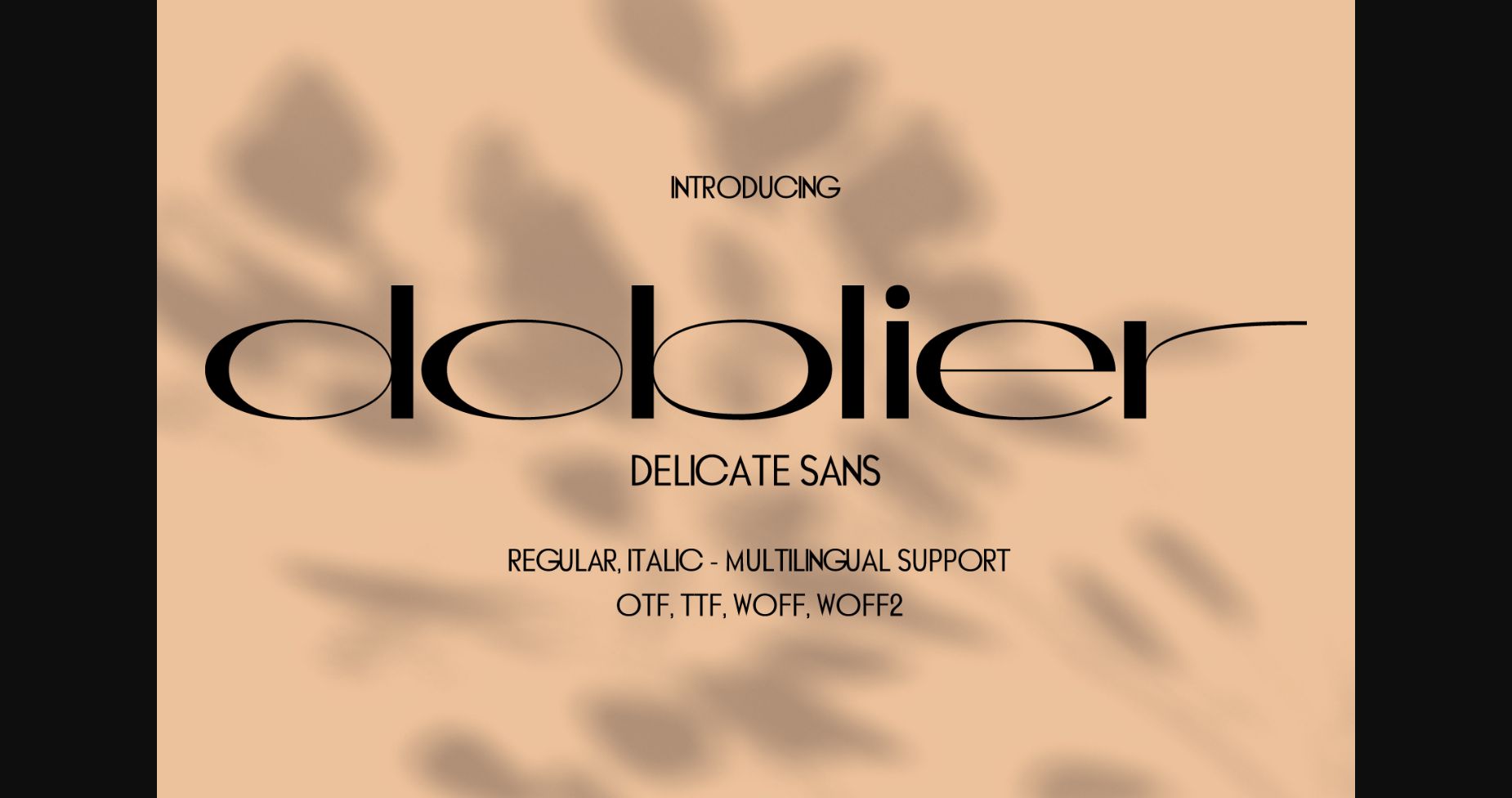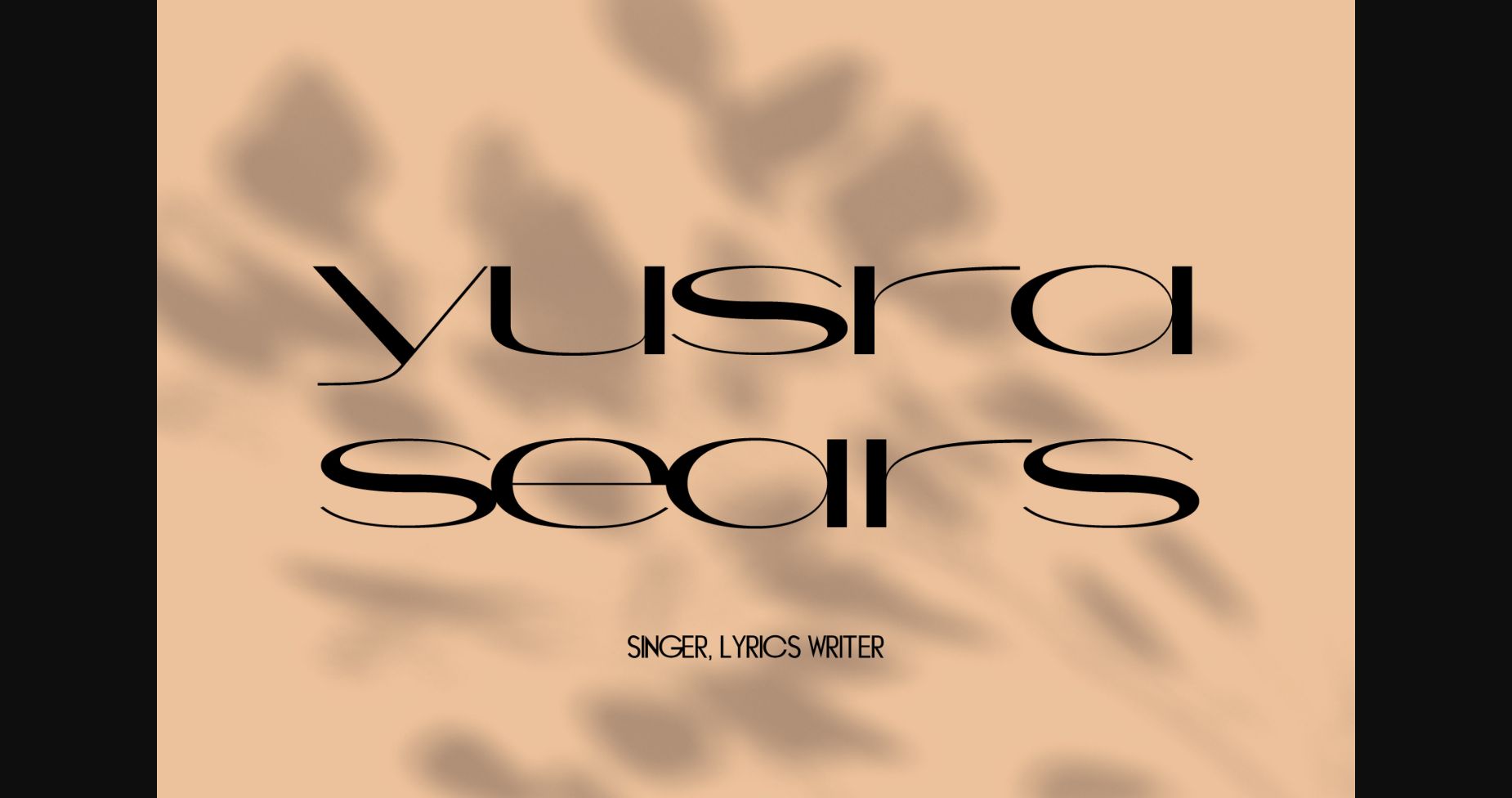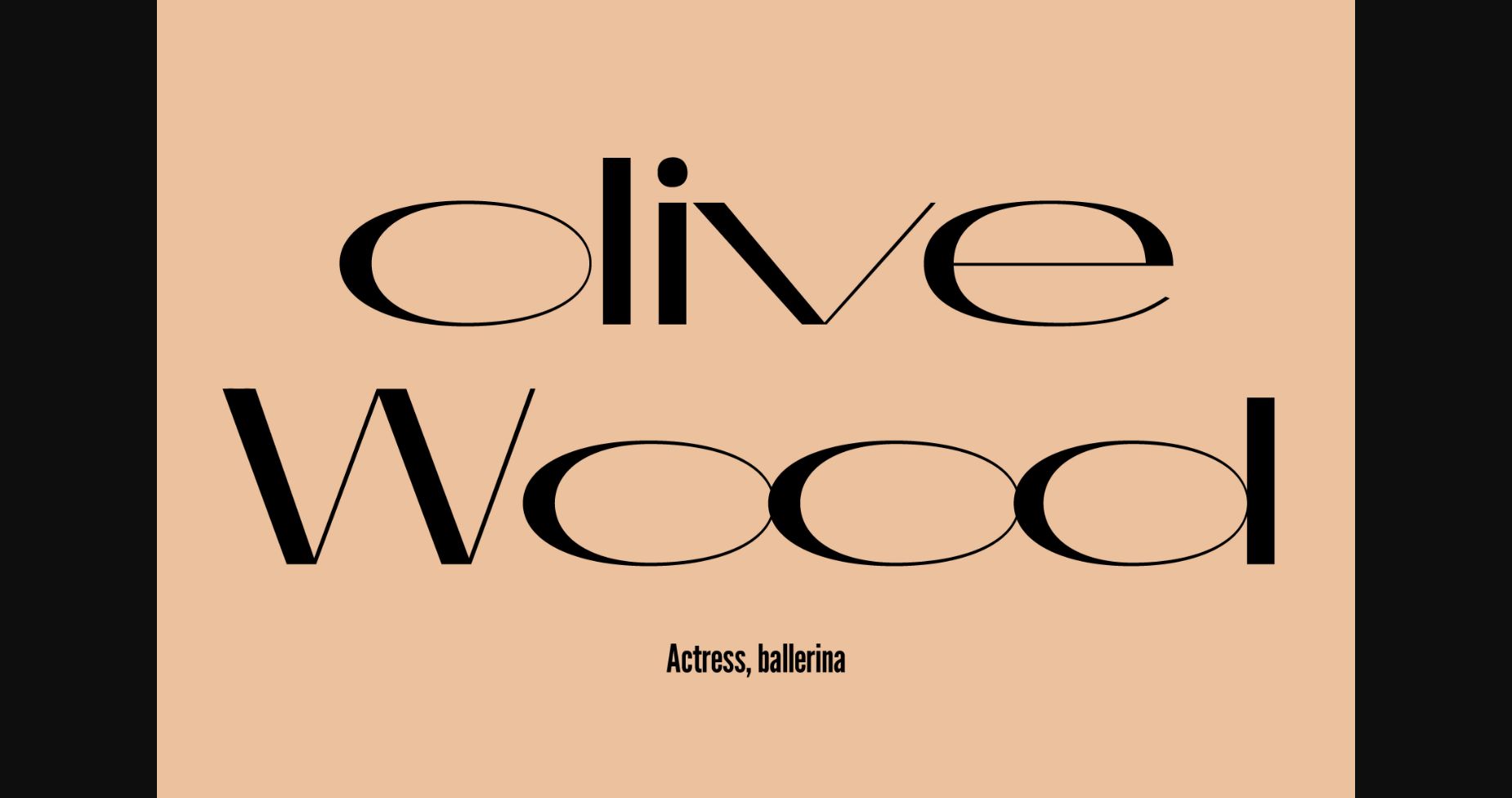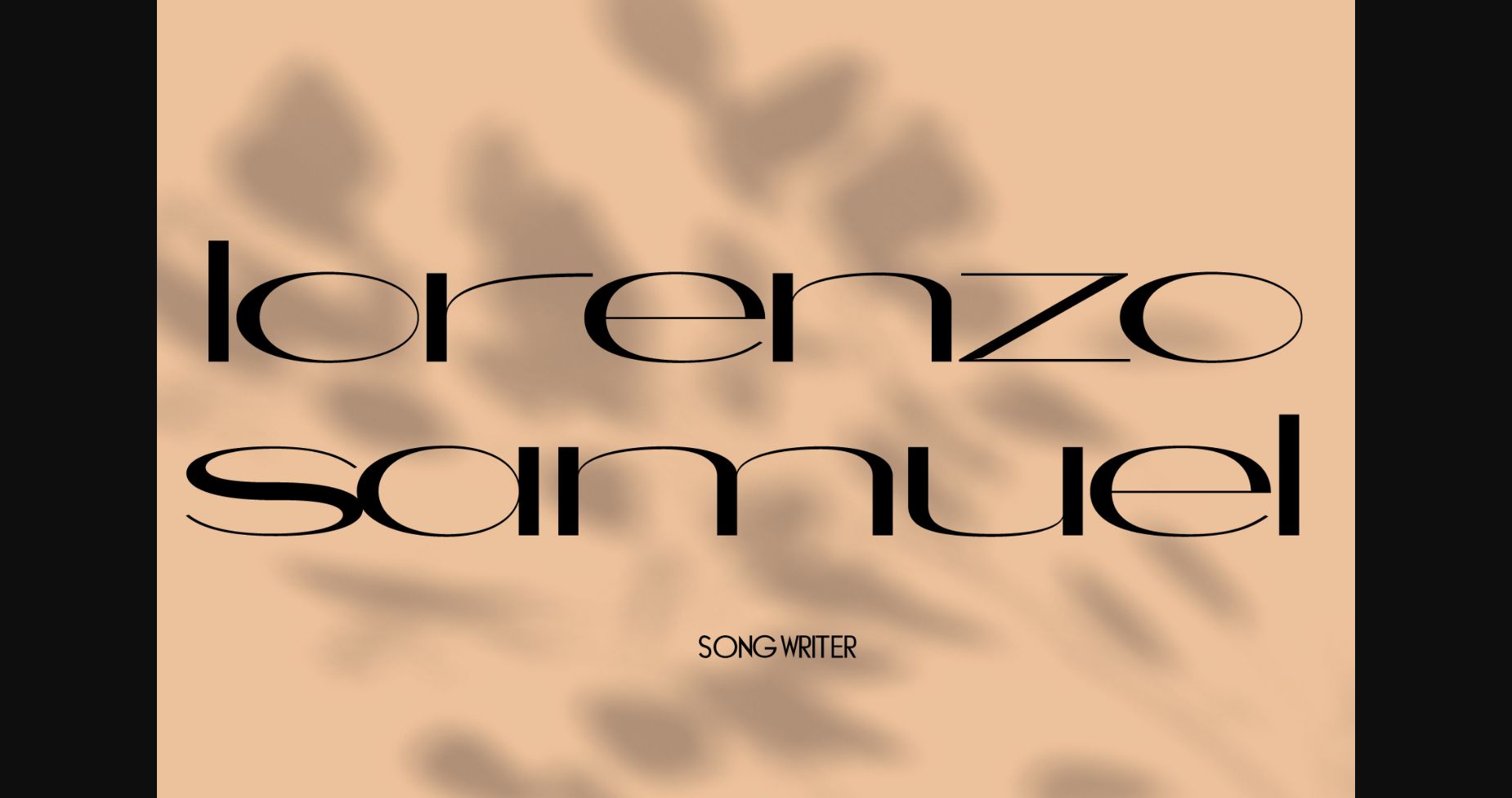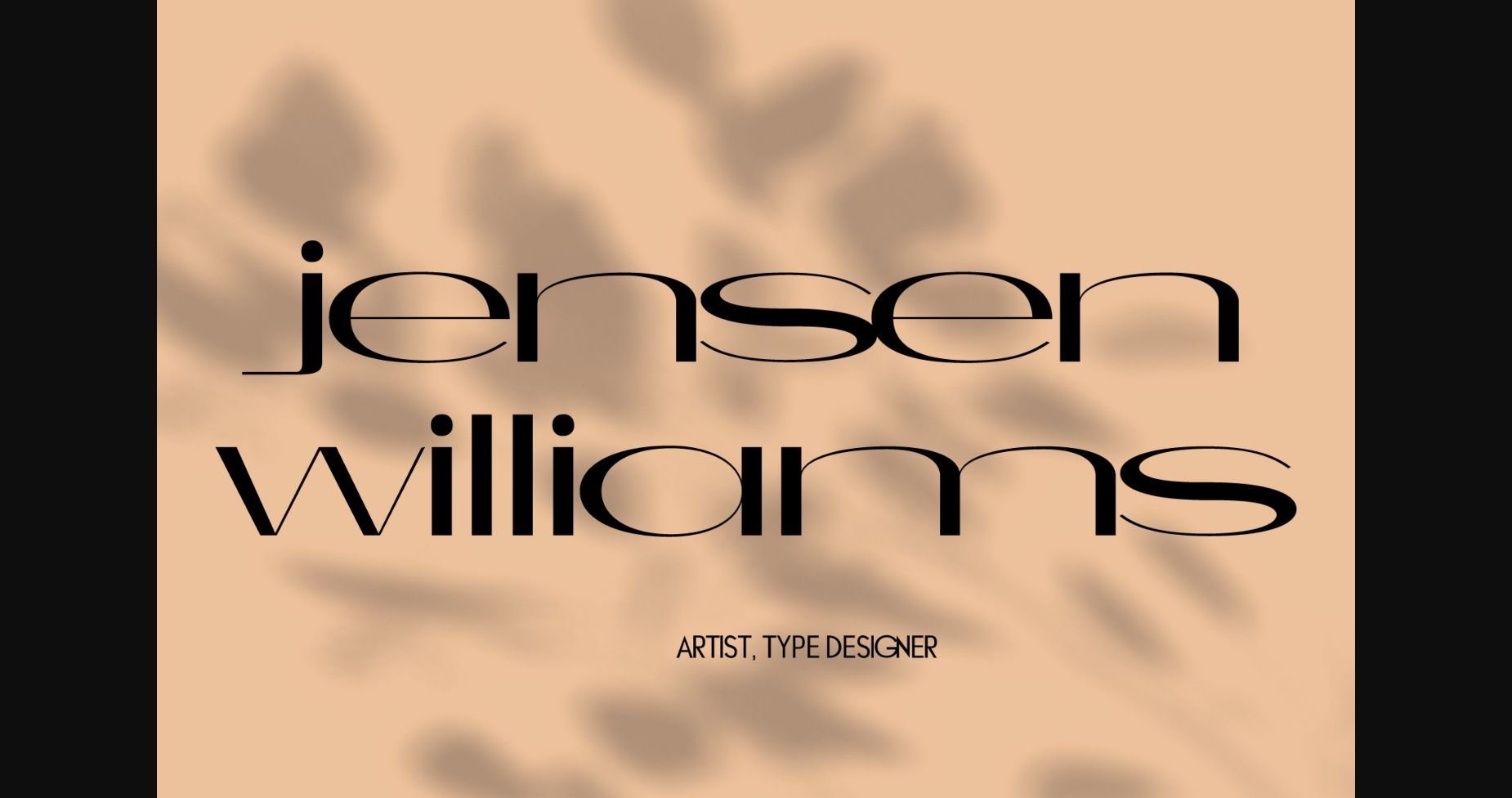
About Doblier Font
Introducing Doblier, a sleek and sophisticated sans-serif font that exudes elegance and minimalism. With over 600 glyphs, this font offers a wide range of characters, symbols, and accents that can be used in any language. Doblier’s multilingual support makes it the perfect choice for designers who work with global clients or need to create designs in multiple languages.
With its clean lines and simple yet sophisticated design, Doblier is perfect for a wide range of applications, from branding and logo design to editorial and web design. Its minimalist style ensures that it can be used in a variety of contexts without overwhelming the content or design.
Doblier’s modern, minimalist aesthetic is perfect for businesses and brands looking to create a sophisticated and timeless look. Its versatility and multilingual support make it an ideal choice for designers and businesses looking to create a cohesive and stylish brand identity across multiple platforms and languages.
Whether you’re a designer looking for a sleek and sophisticated font to add to your collection or a business looking to create a chic and minimalist brand identity, Doblier is the perfect choice. With its elegant design, extensive character set, and multilingual support, Doblier is sure to elevate your design projects to the next level.
With its clean lines and simple yet sophisticated design, Doblier is perfect for a wide range of applications, from branding and logo design to editorial and web design. Its minimalist style ensures that it can be used in a variety of contexts without overwhelming the content or design.
Doblier’s modern, minimalist aesthetic is perfect for businesses and brands looking to create a sophisticated and timeless look. Its versatility and multilingual support make it an ideal choice for designers and businesses looking to create a cohesive and stylish brand identity across multiple platforms and languages.
Whether you’re a designer looking for a sleek and sophisticated font to add to your collection or a business looking to create a chic and minimalist brand identity, Doblier is the perfect choice. With its elegant design, extensive character set, and multilingual support, Doblier is sure to elevate your design projects to the next level.